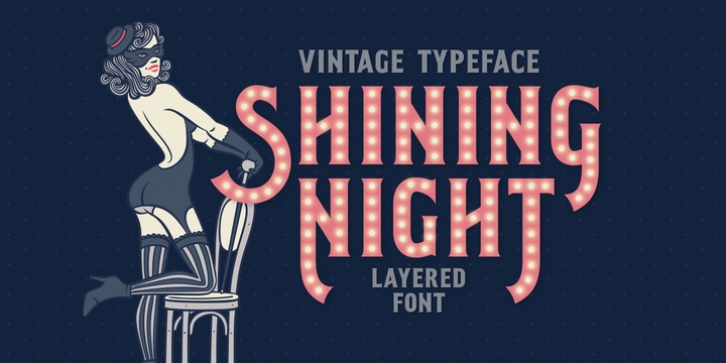
Hi! Introducing a vintage style font Shining Night. This font has additional font file with round dots over the base glyphs, that immitates a lamp lights of a real cabaret signboard.